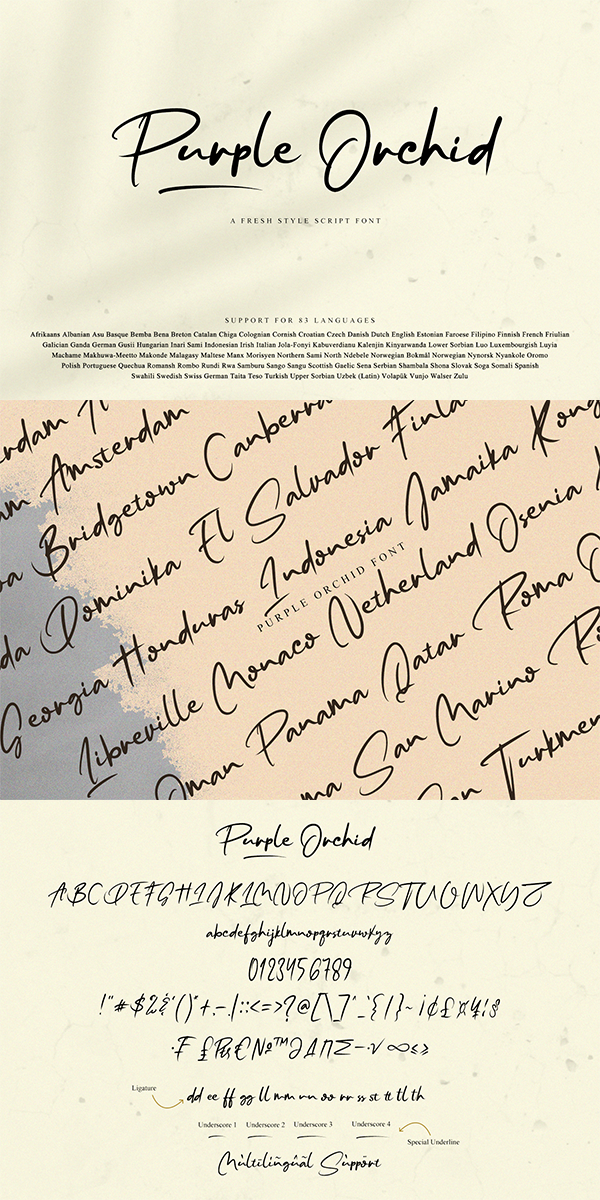
Purple Orchid Font
Designed by Gie Studio
About Purple Orchid
Purple Orchid is a natural handwritten font with a modern signature style and elegance. This font is perfect for creating handwritten-style logos, wedding stationery, photographer watermarks logos, modern websites, fashion branding, name card, wedding invitation, and all the identity of your business products.